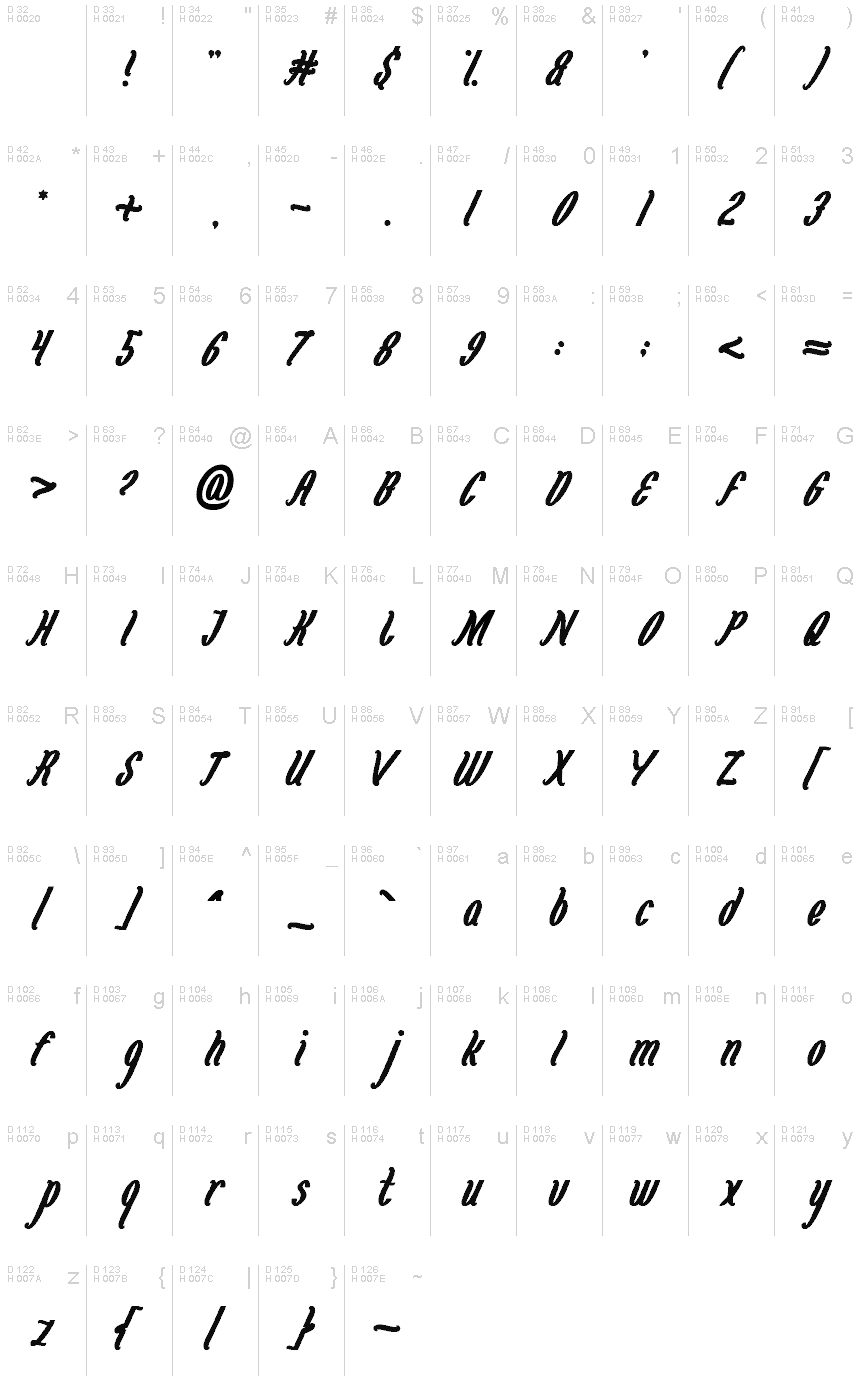
Magenta Flower
Magenta Flower, a handwritten font crafted by Weknow, exudes a captivating essence of whimsy and charm. This condensed typeface boasts a distinctive flair, with its organic, flowing strokes and playful, almost calligraphic, aesthetic. The font's harmonious blend of bold and delicate elements creates a visually striking impression, effortlessly evoking a sense of warmth and creativity.
Magenta Flower's versatility shines through, making it a compelling choice for a wide range of design projects. Its playful yet sophisticated nature lends itself perfectly to branding and marketing materials, such as product packaging, social media graphics, and event invitations. The font's unique character also makes it a suitable candidate for crafting captivating headlines, decorative text, and eye-catching typographic compositions.